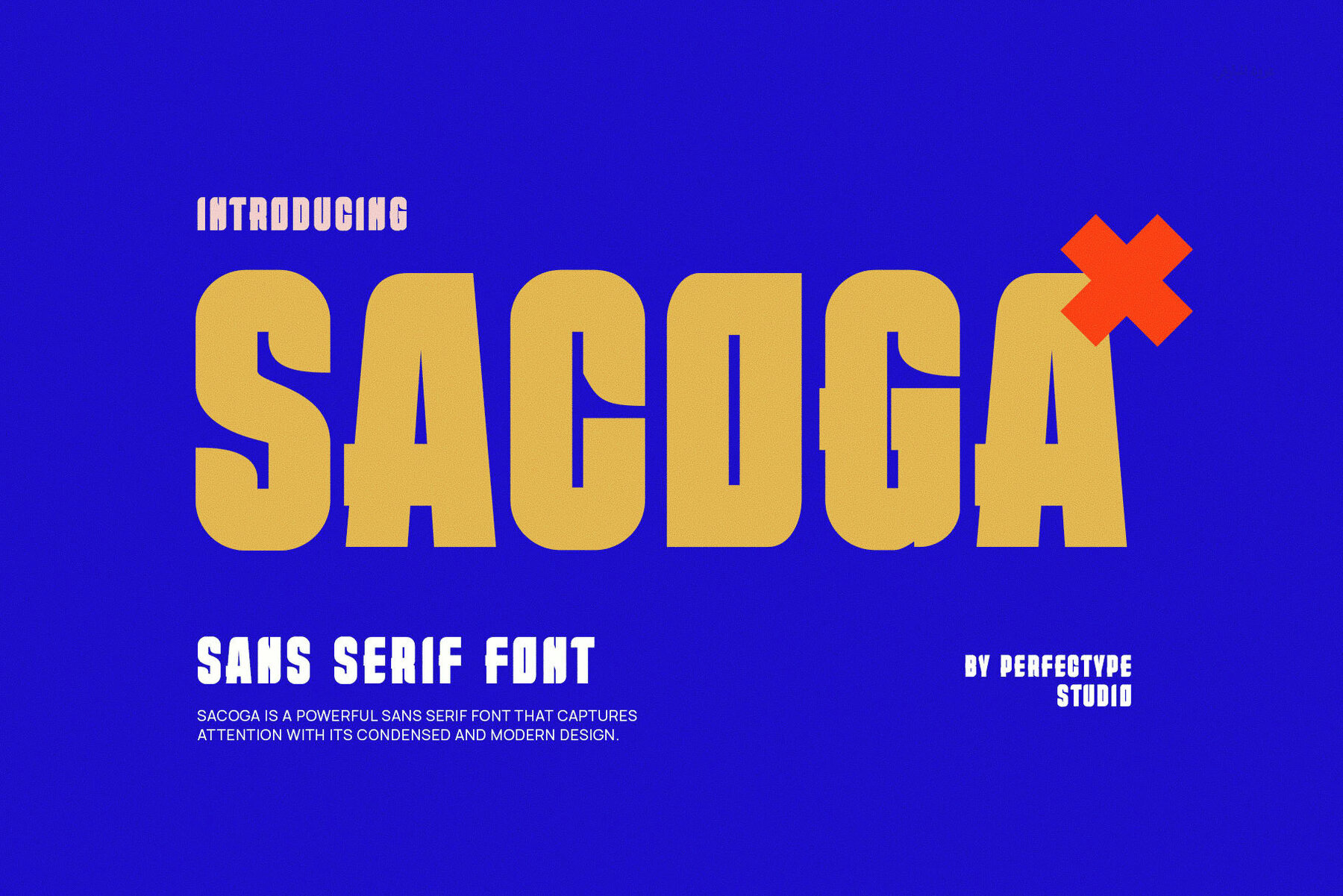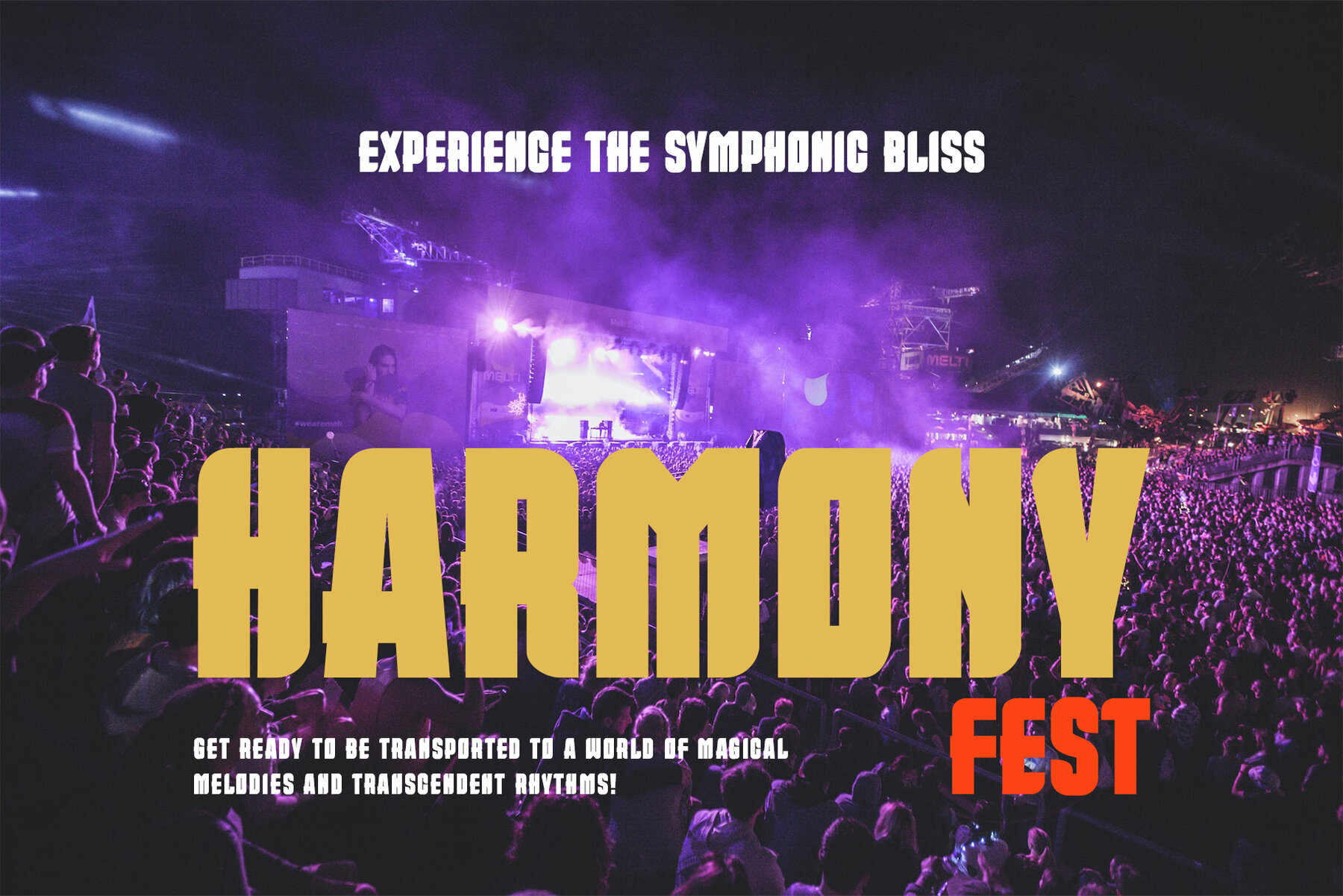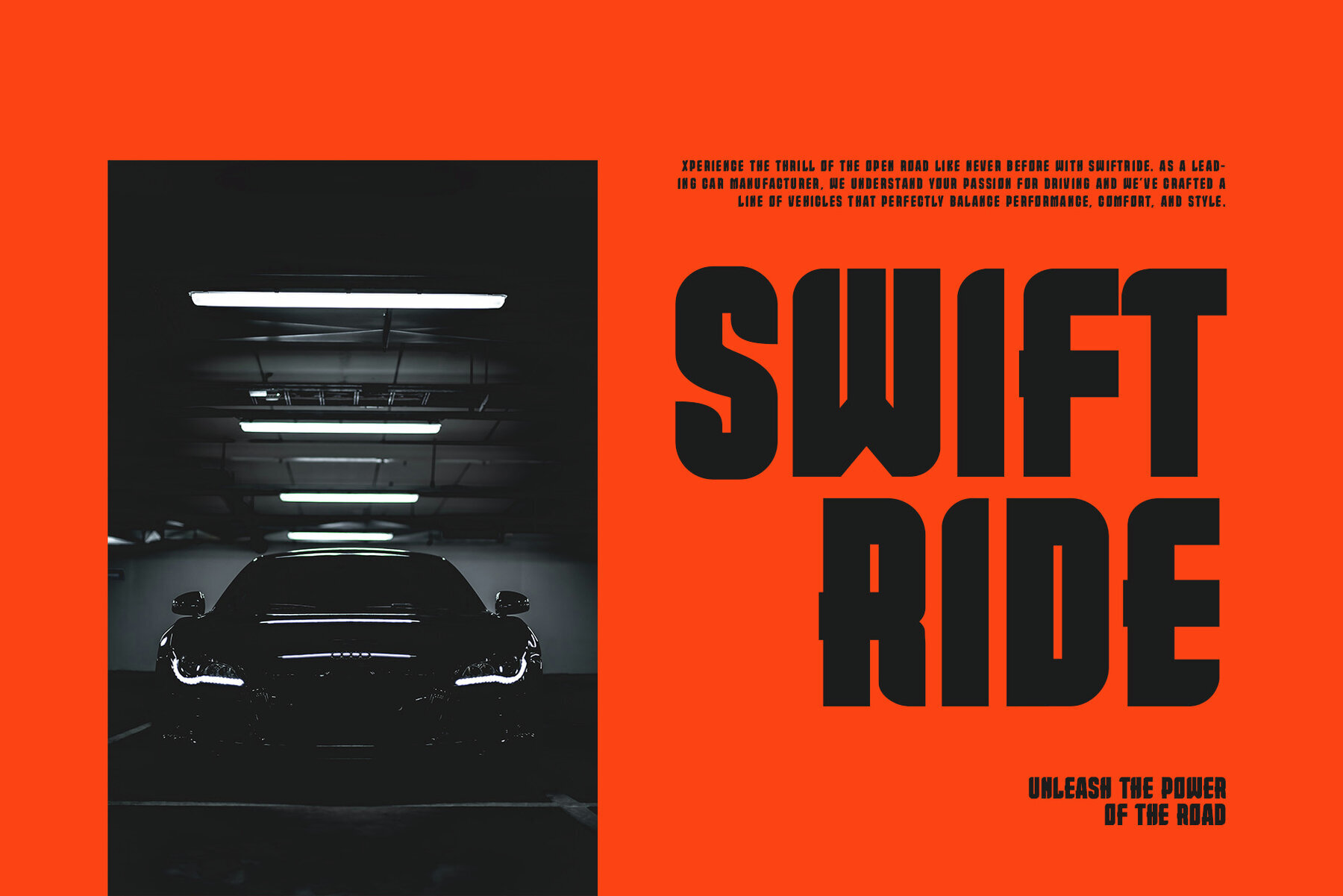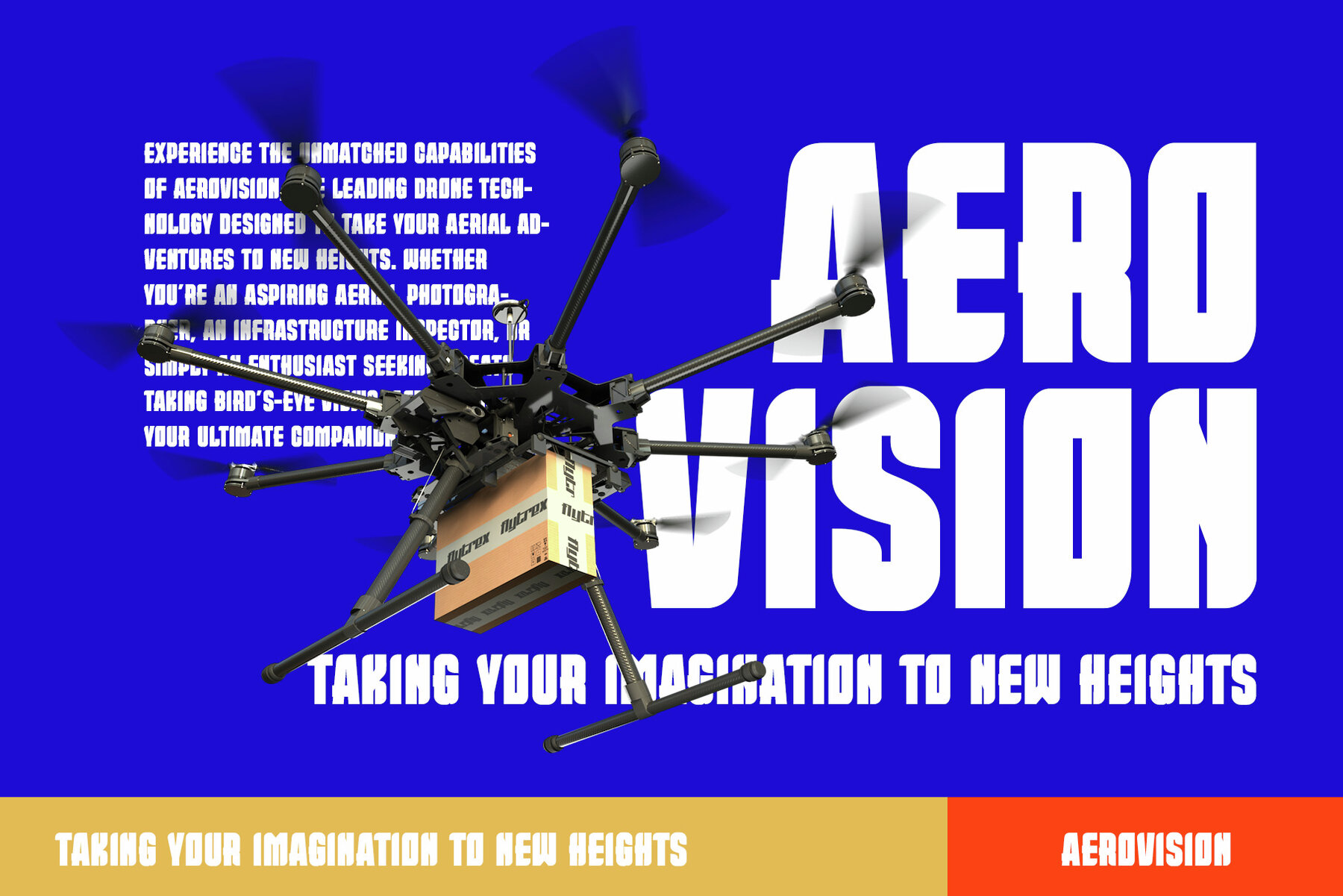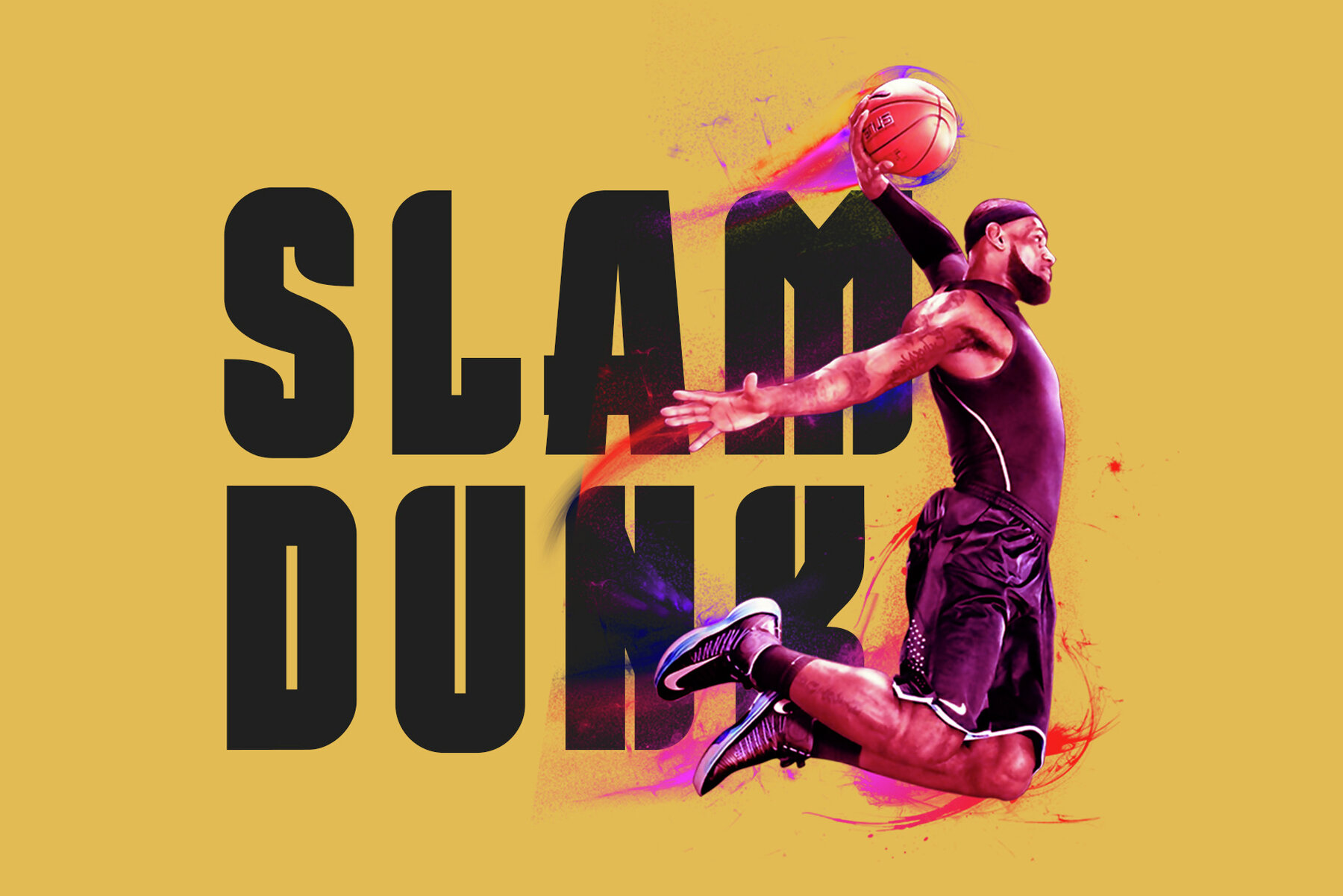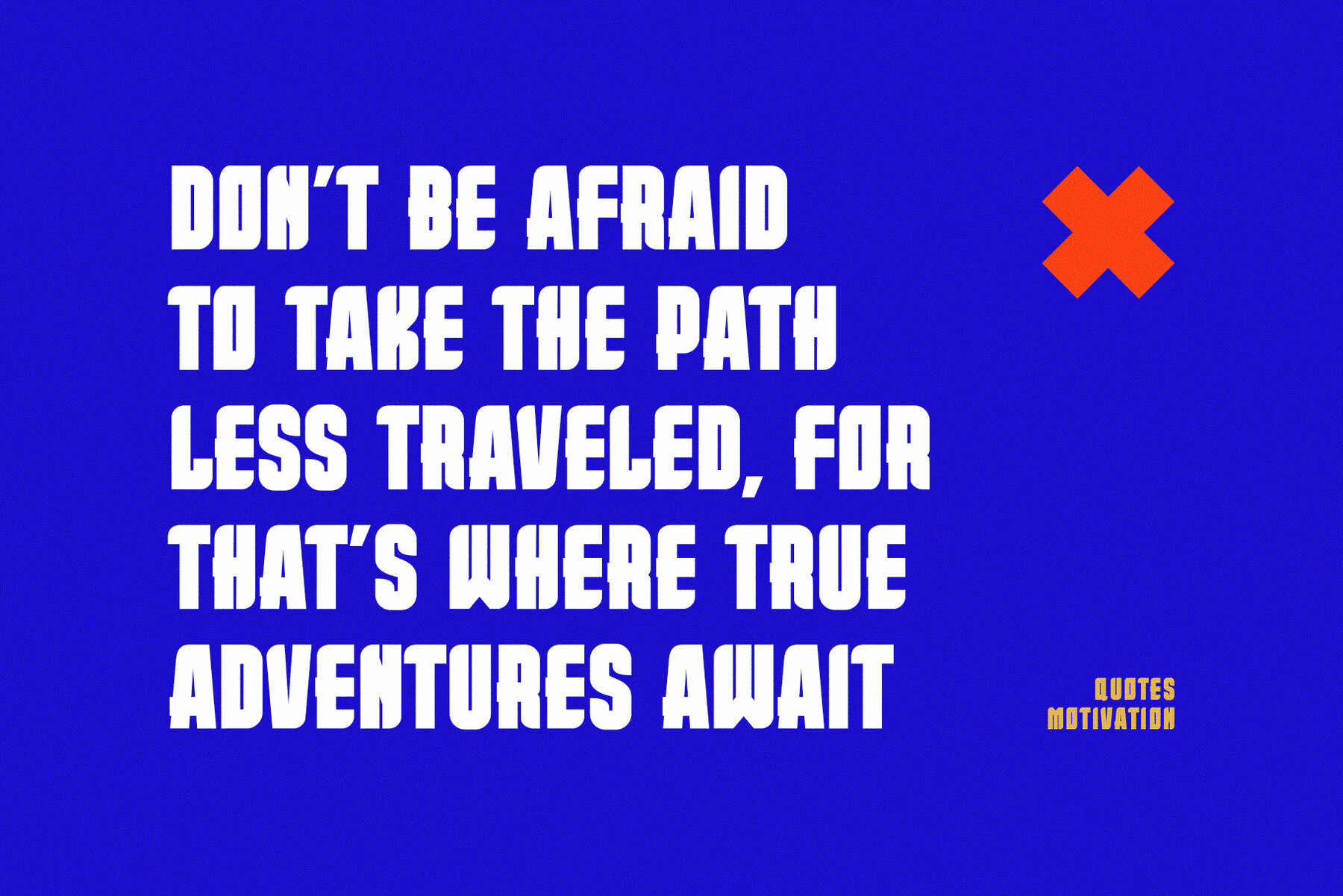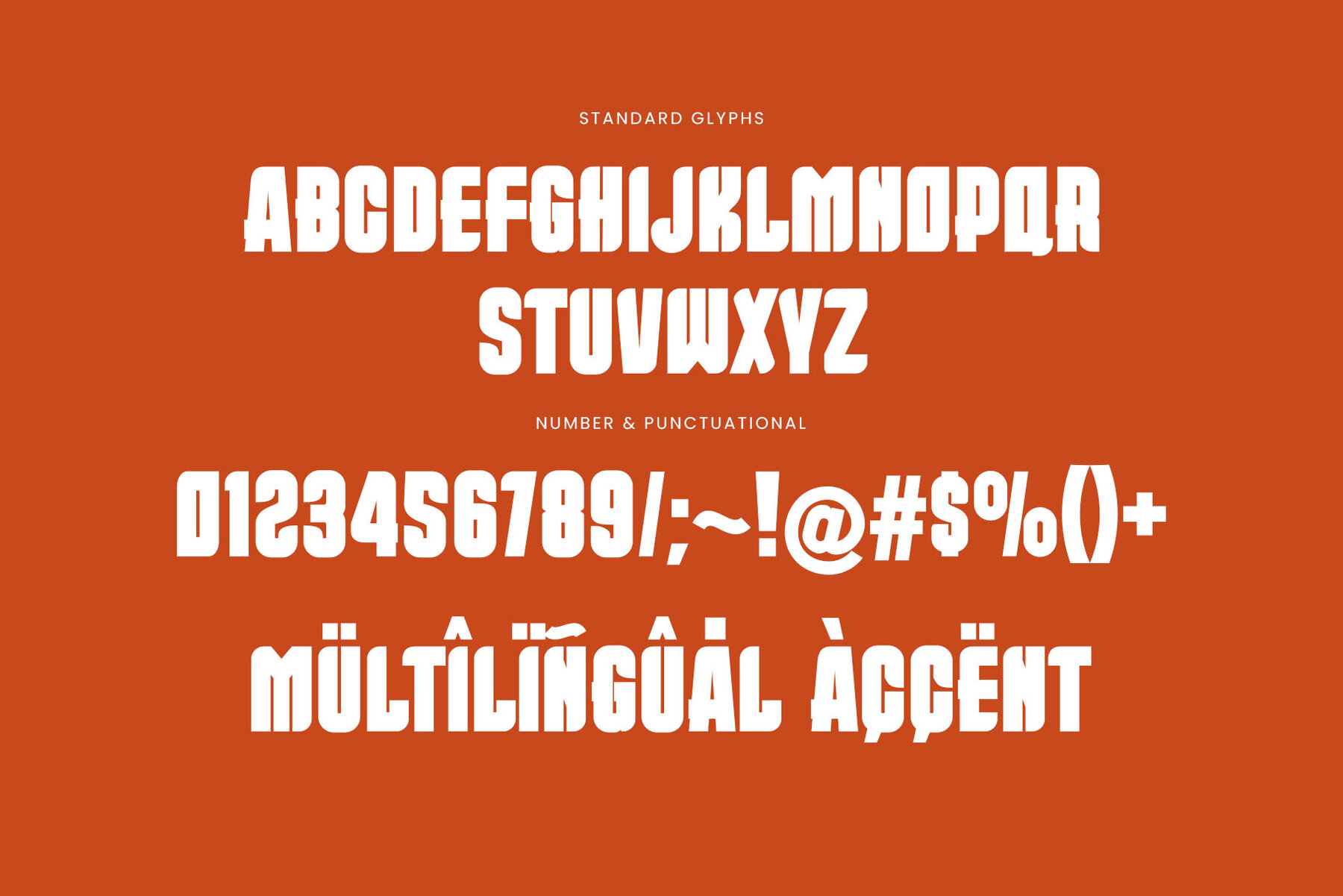
Sacoga Font
This bold, blocky sans-serif font is perfect for modern and impactful designs. With its thick lines and clean geometric shapes, it works exceptionally well for headlines, posters, logos, and advertising materials where attention-grabbing titles are essential. Ideal for branding and contemporary design projects seeking a minimalist yet strong visual statement.